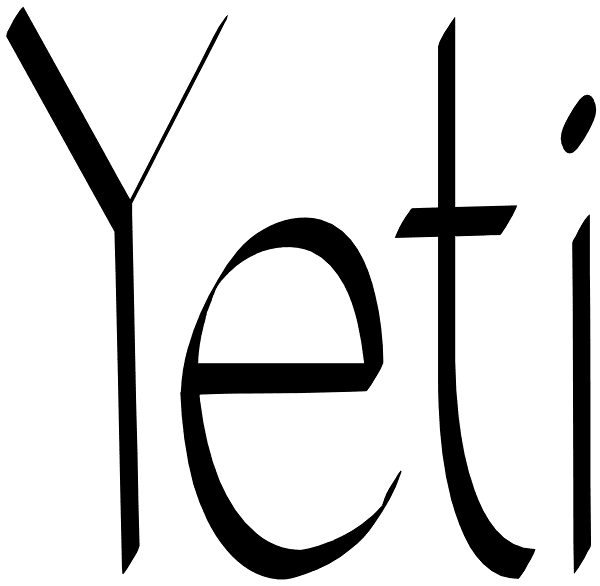
Yeti
Yeti is tall and hand-drawn with a hint of calligraphy. It is quite possibly influenced by a yeti’s penmanship, but even that cannot be proven. Whether you enjoy writing or designing in all-caps or not, this font has something for you. Something...